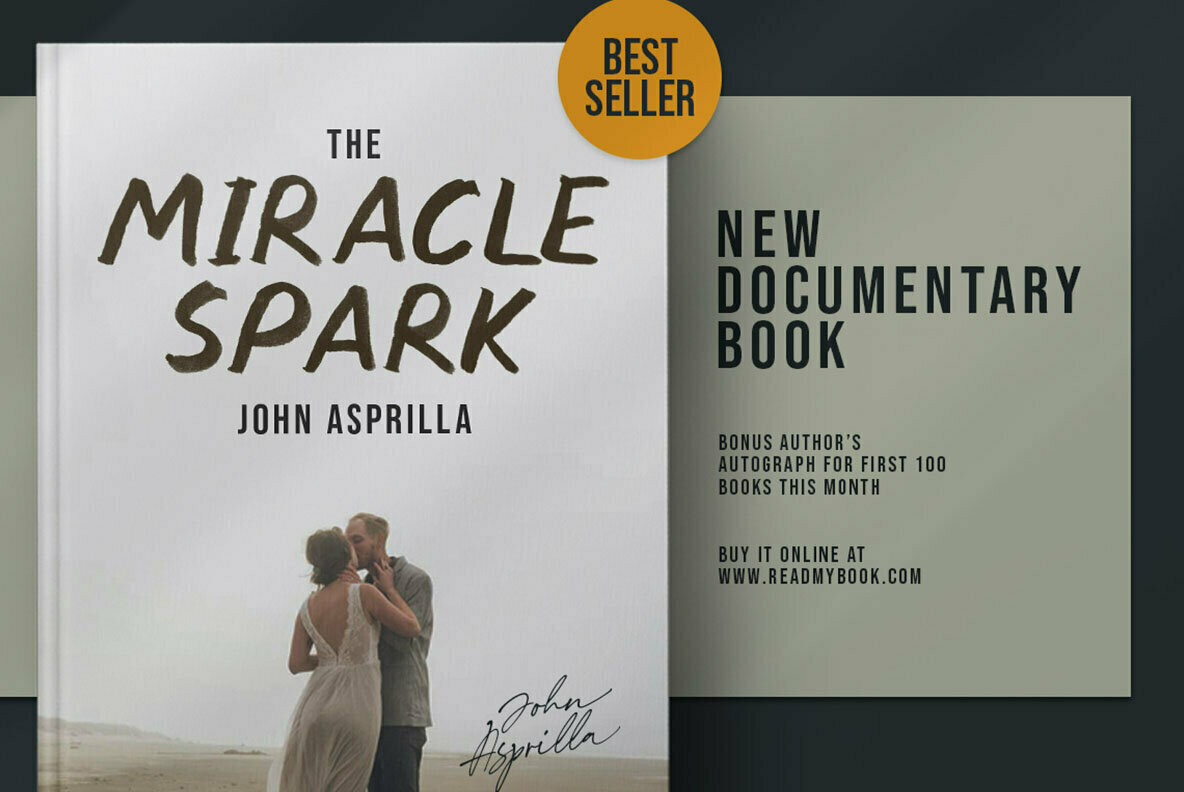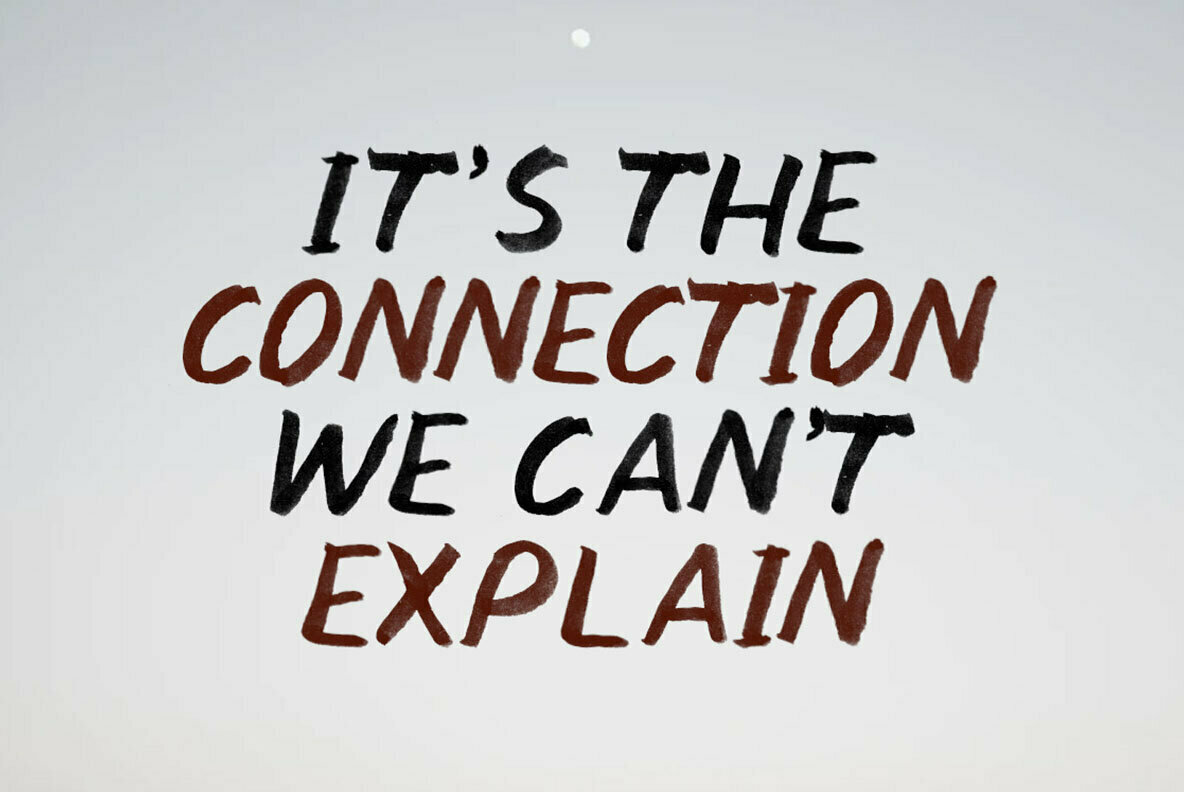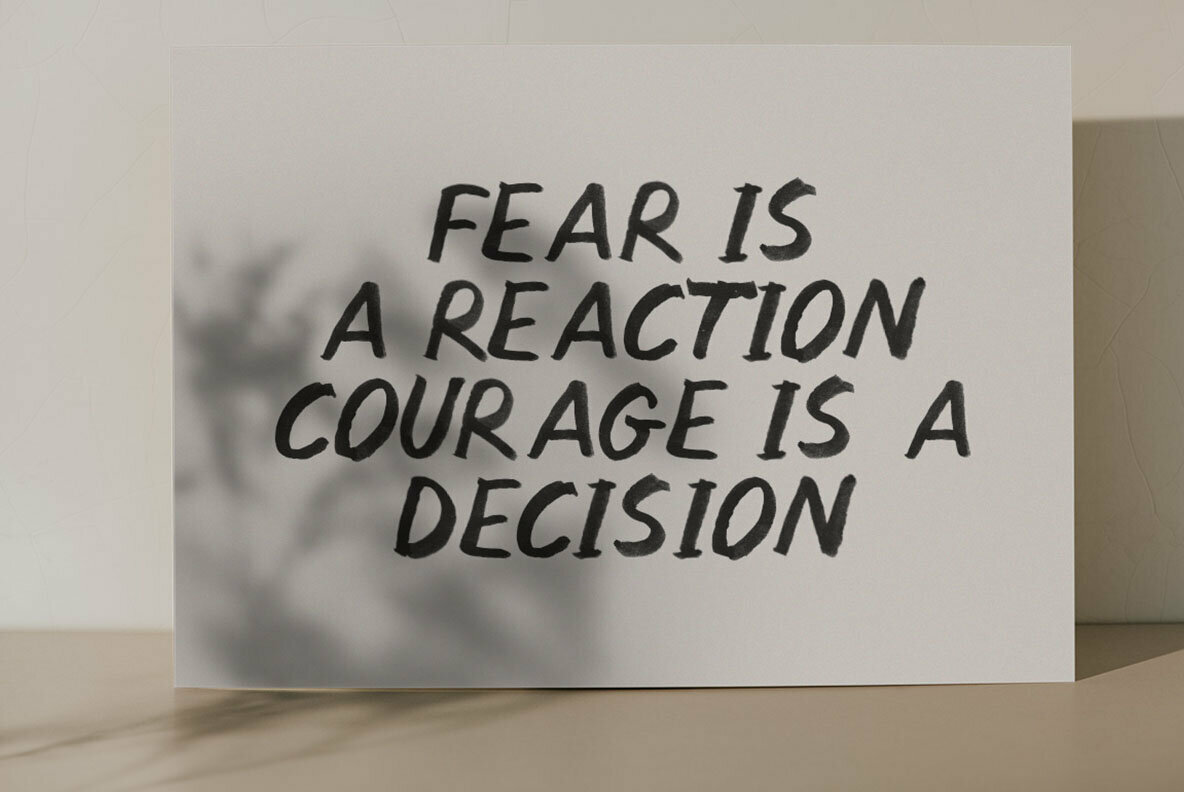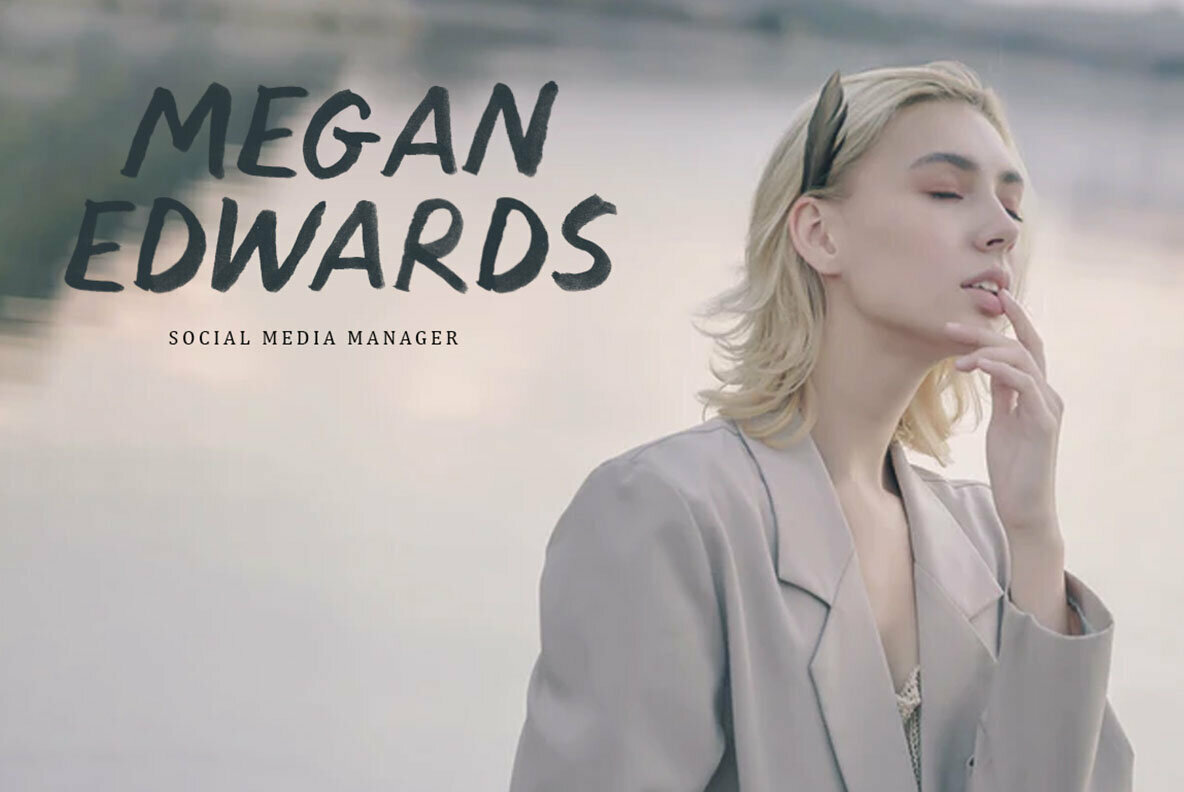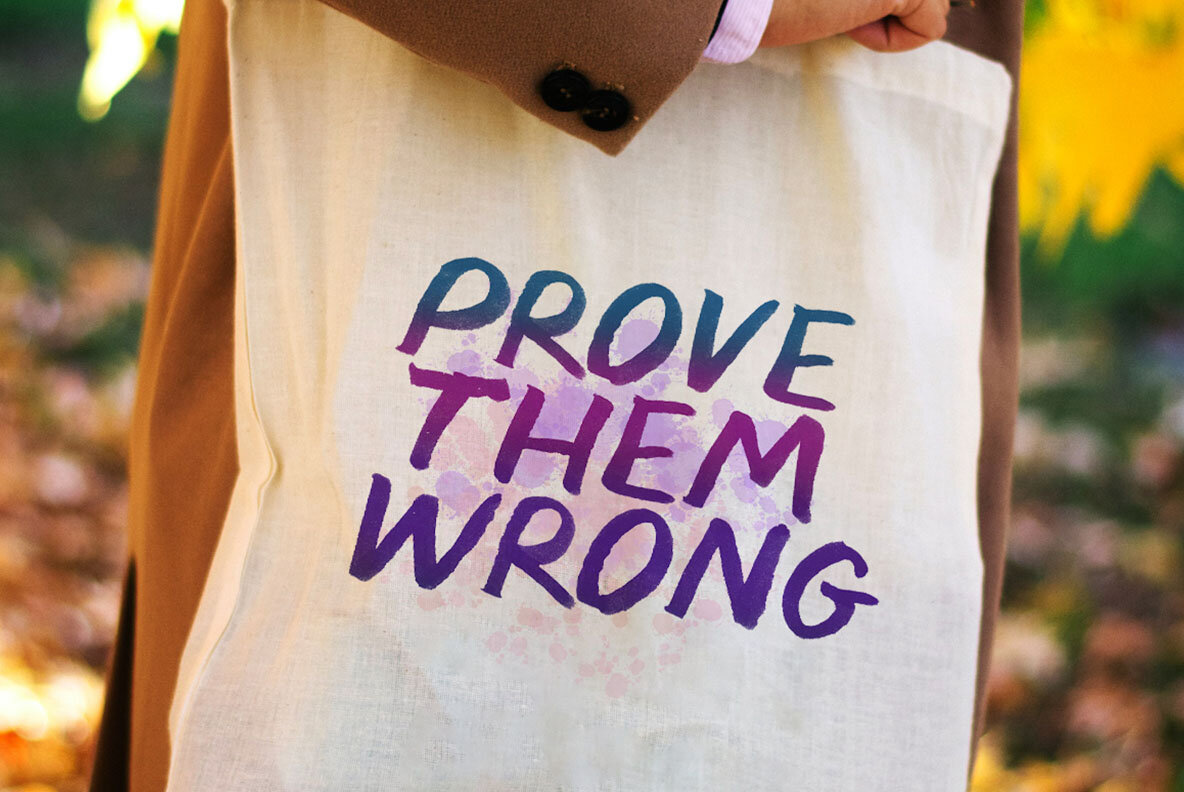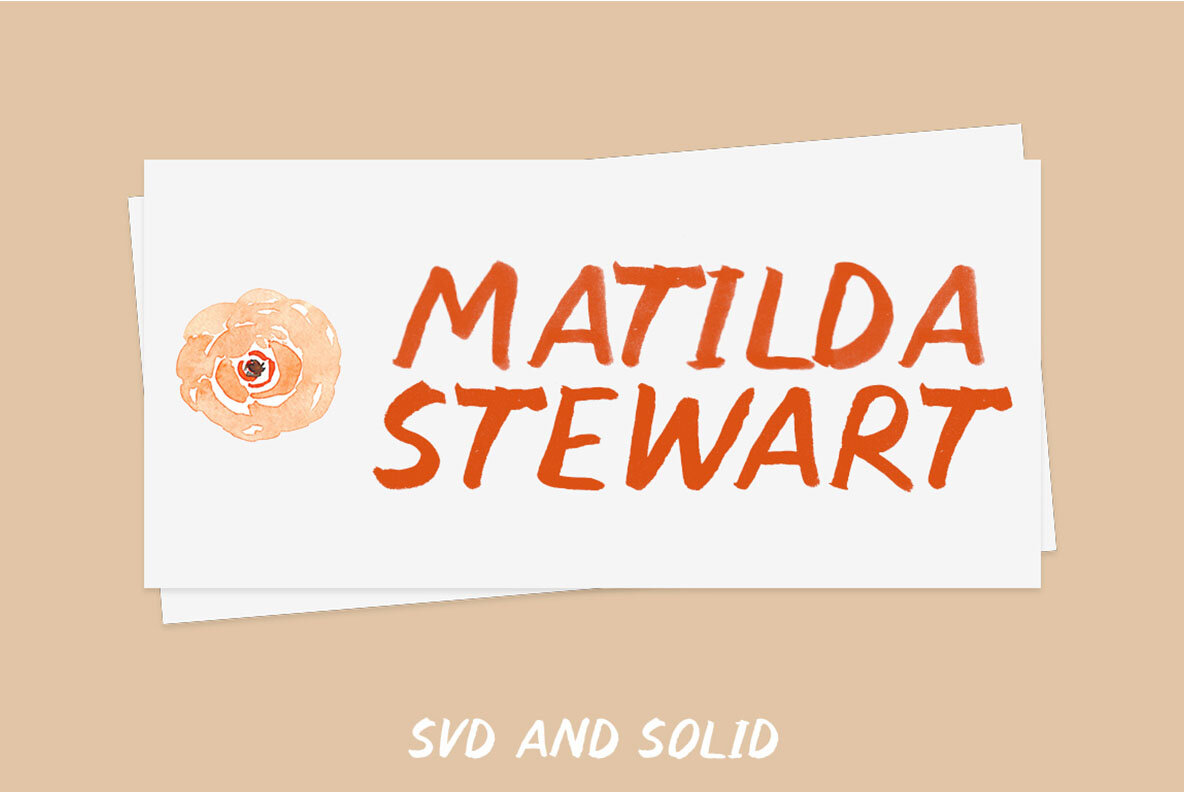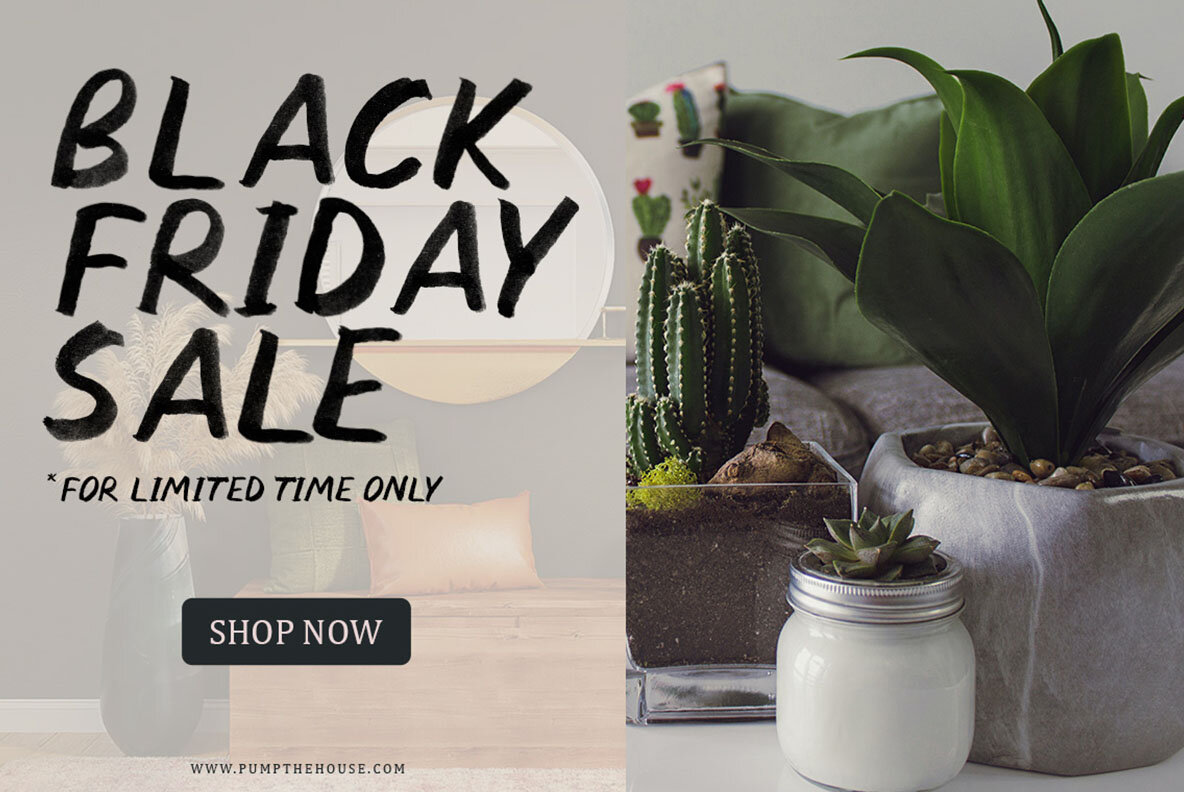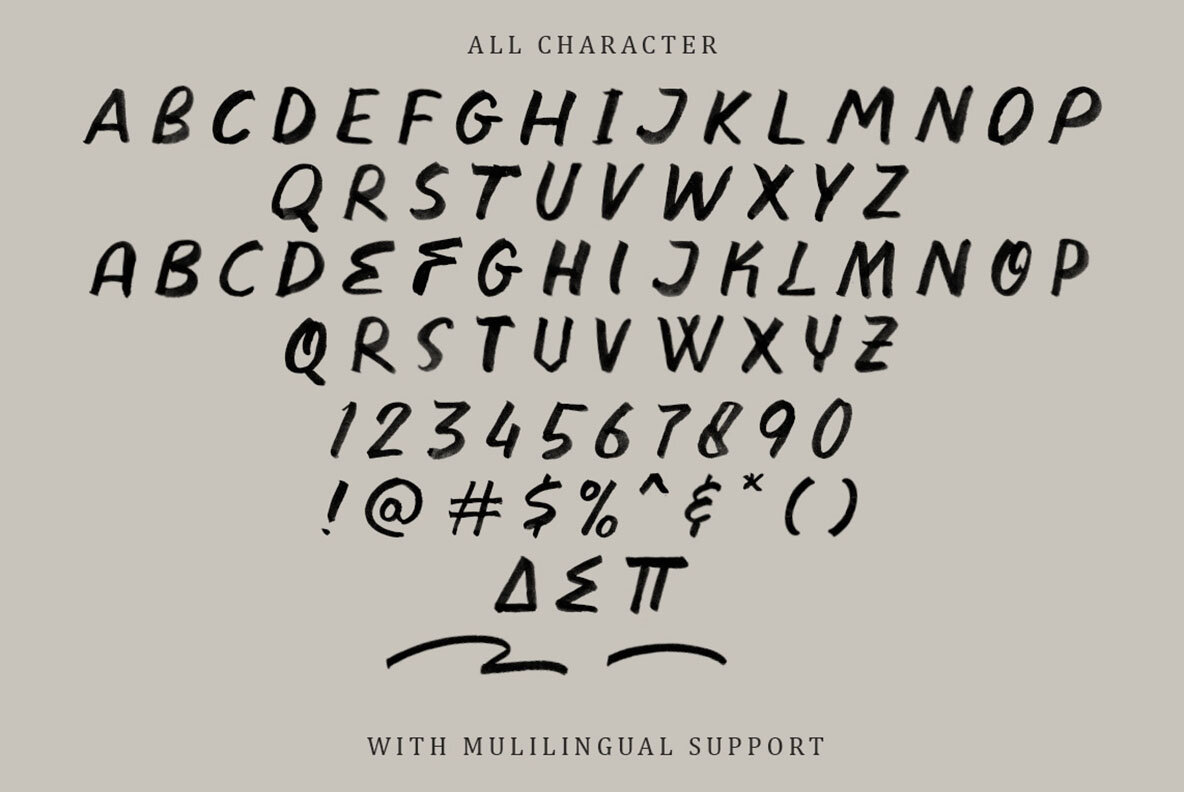
Divine Stone SVG Font
Divine Stone is an exceptional brush display font, characterized by its distinctive shape and watercolor brush effect. This font exudes a playful charm, making it an ideal choice for design themes that aim to capture freshness and vibrancy. Particularly suited for logos, Divine Stone seamlessly adapts to a variety of formal applications including invitations, labels, magazines, and more. The font's versatility also extends to packaging, fashion materials, makeup branding, stationery, and other advertising needs.Divine Stone: A Brush Display Font with Watercolor Effect